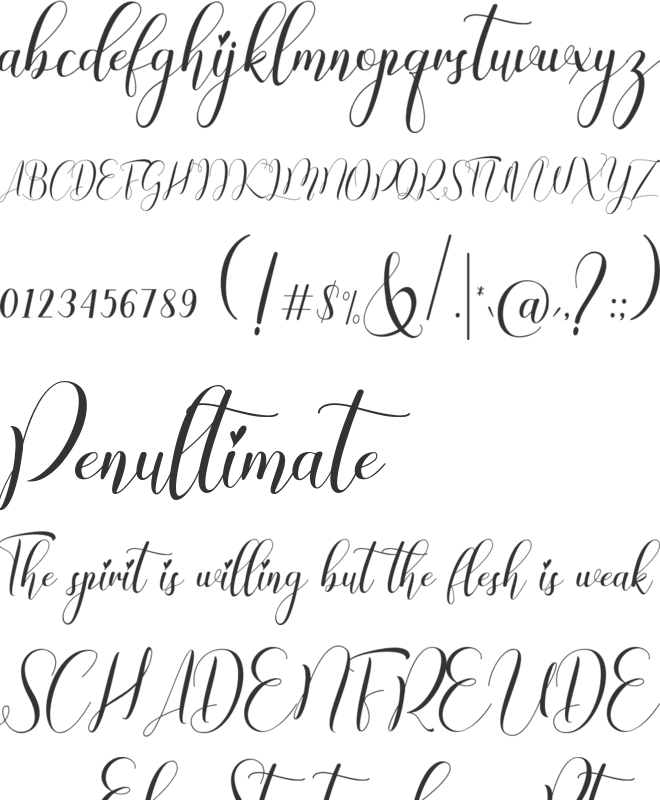
Chinthya Free Font
Chinthya is a romantic and delicate handwritten font. It has beautiful and well balanced characters and as a result, it matches a wide pool of designs. Add it to your most creative ideas and notice how it makes them come alive!